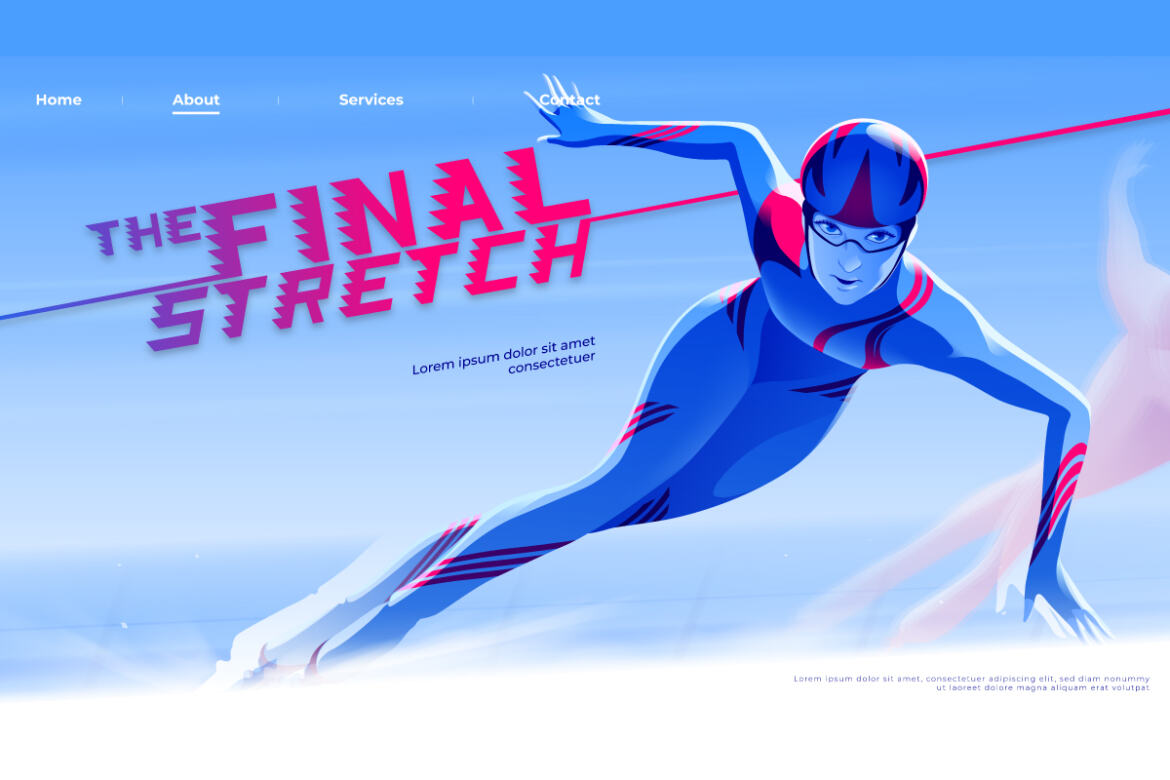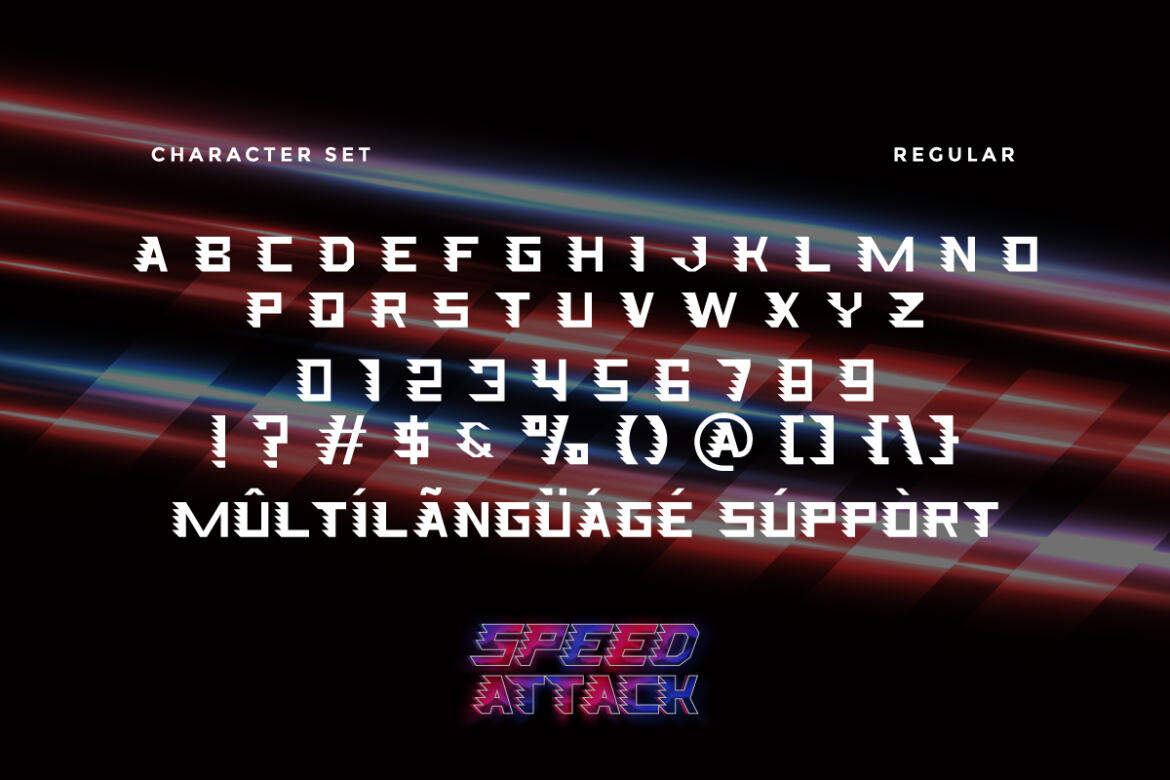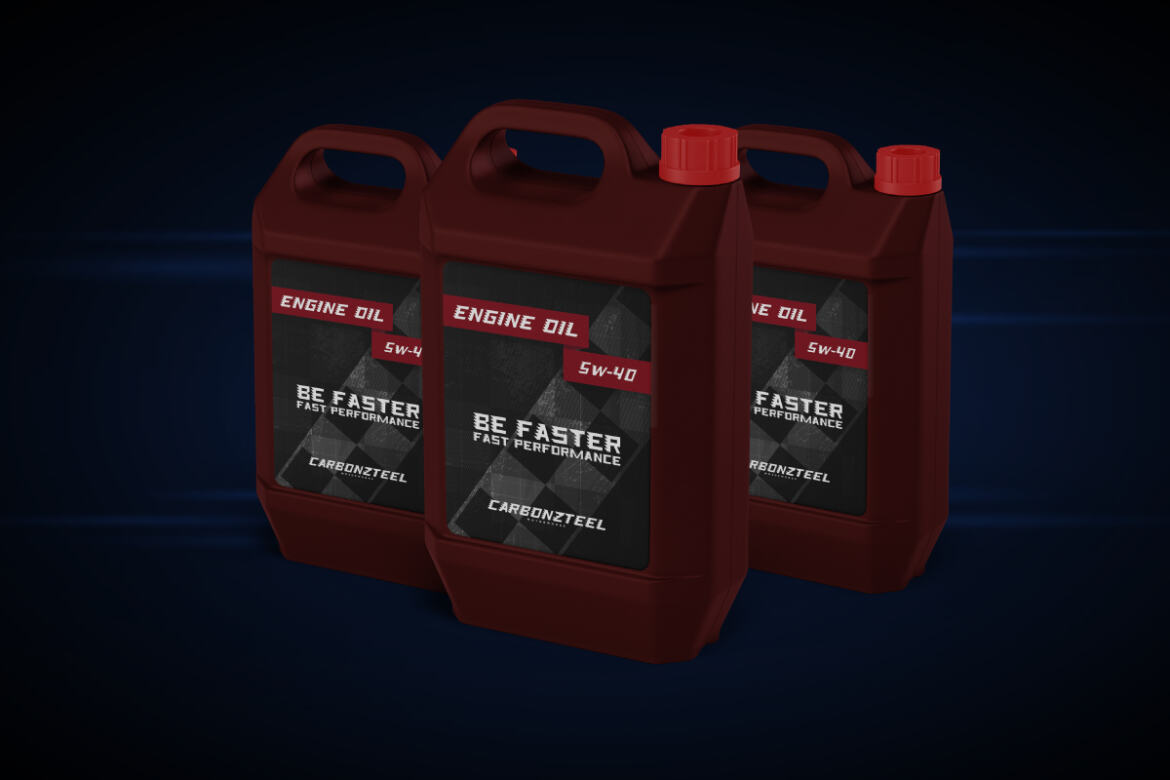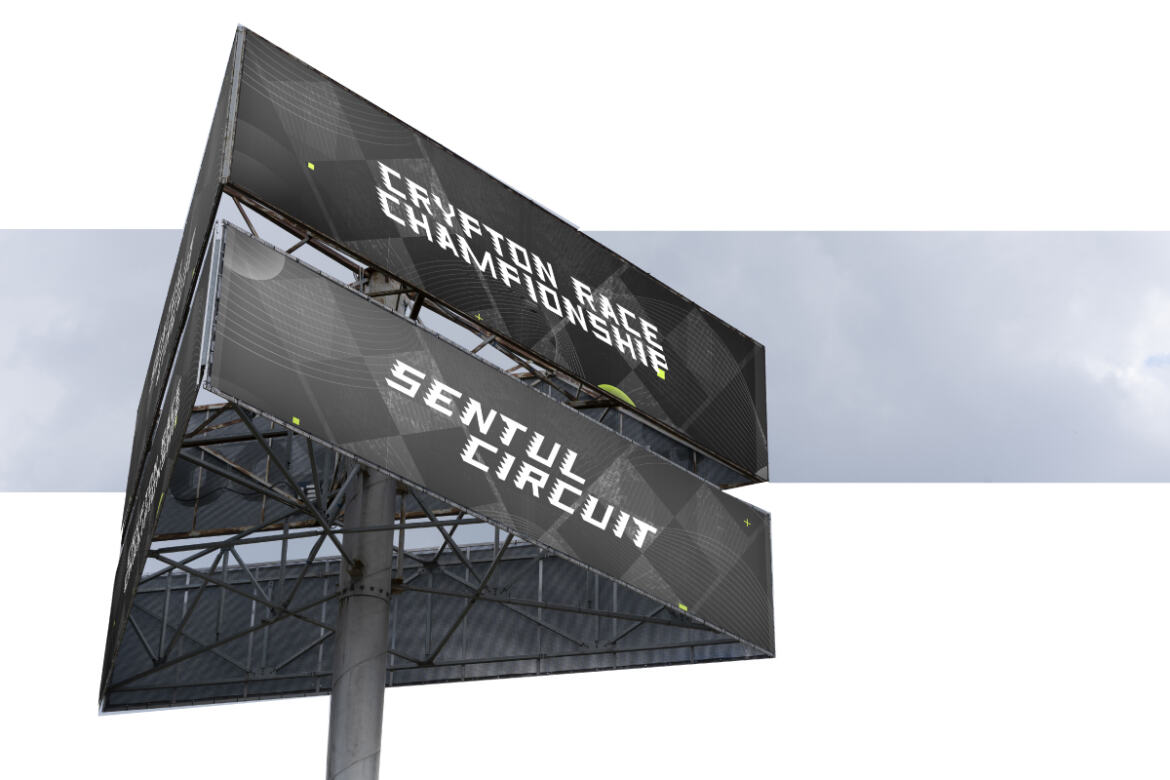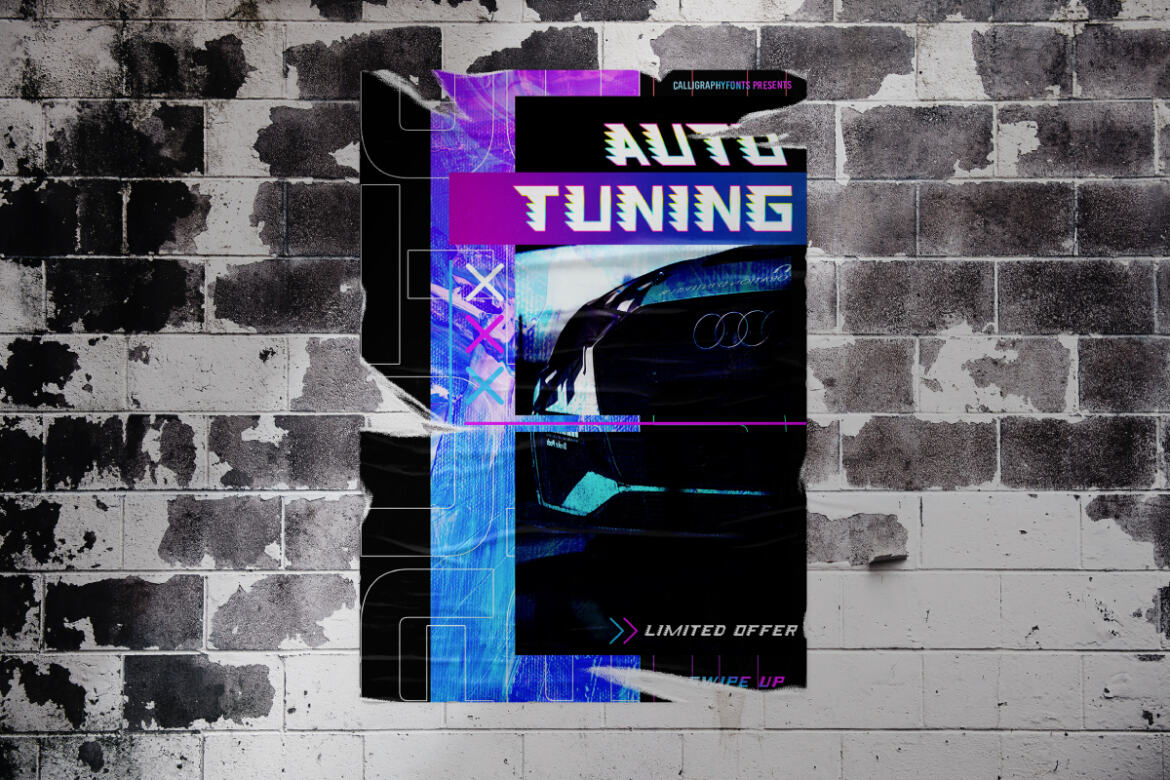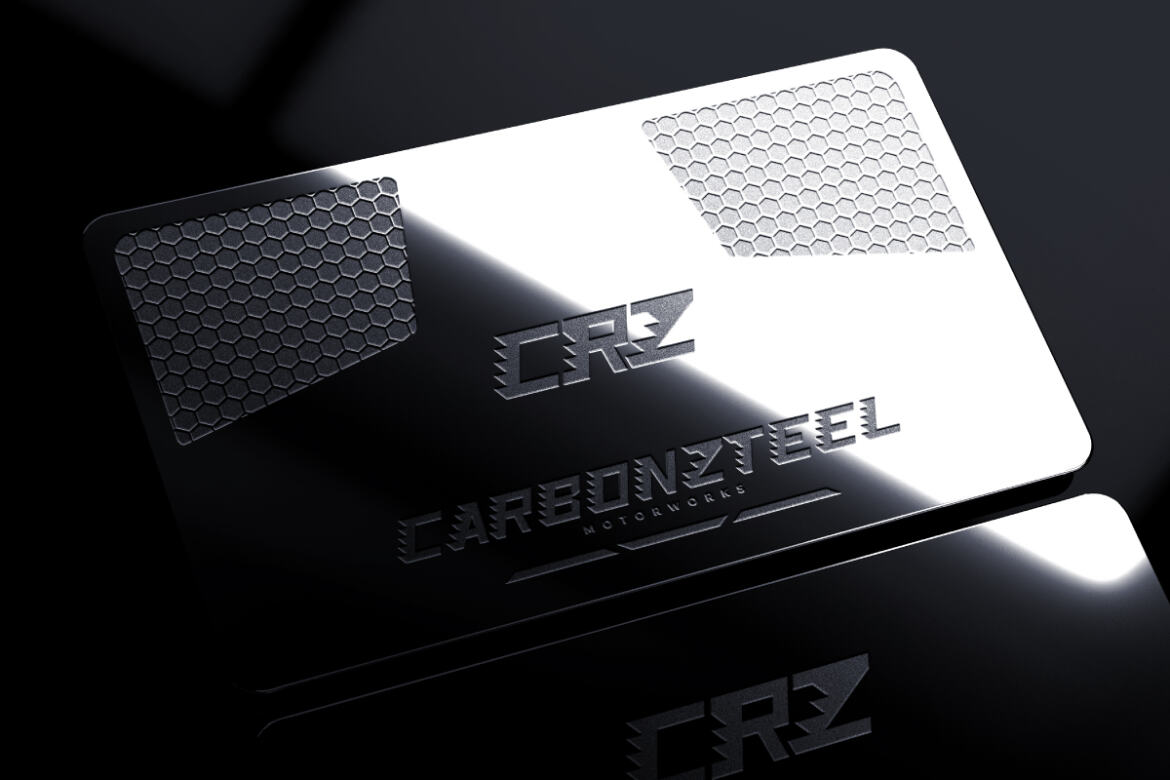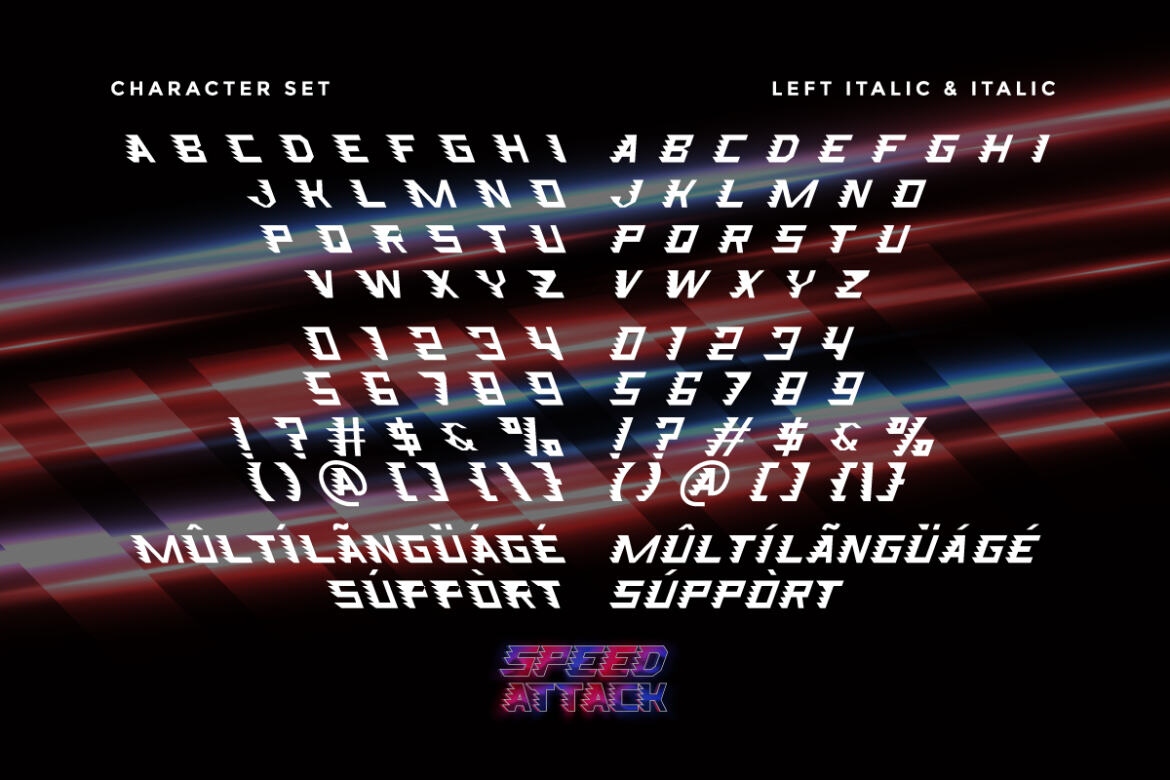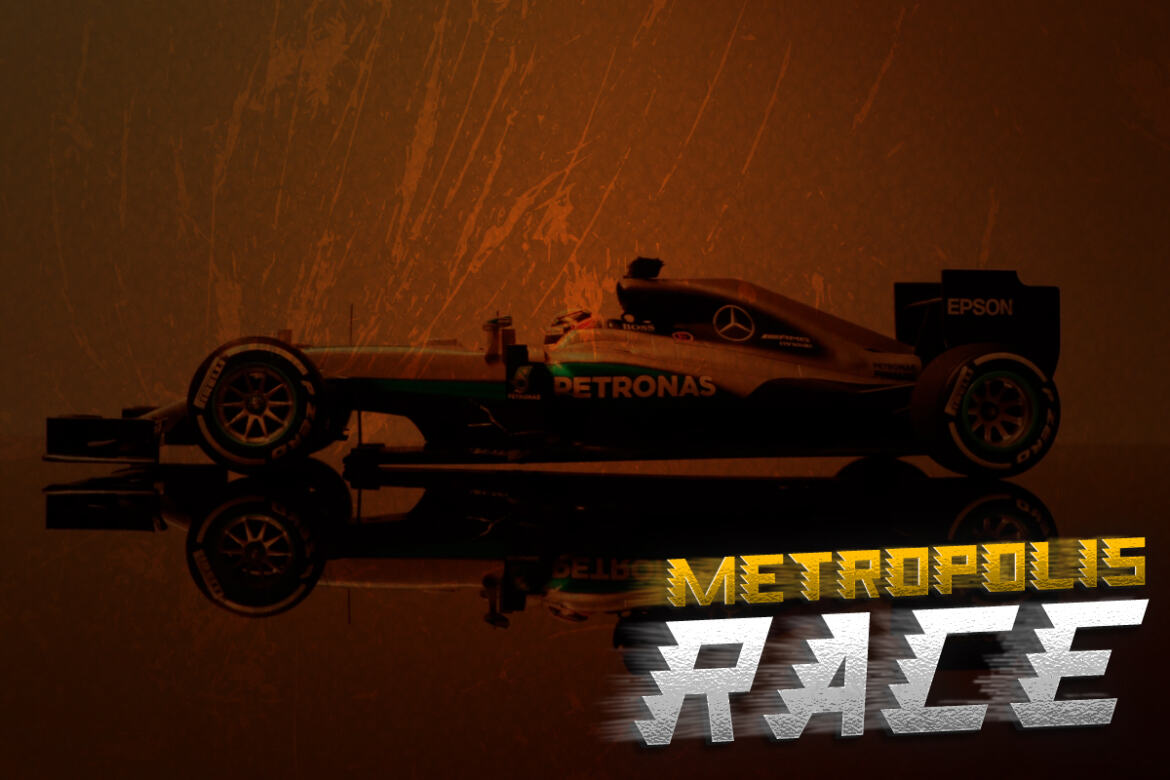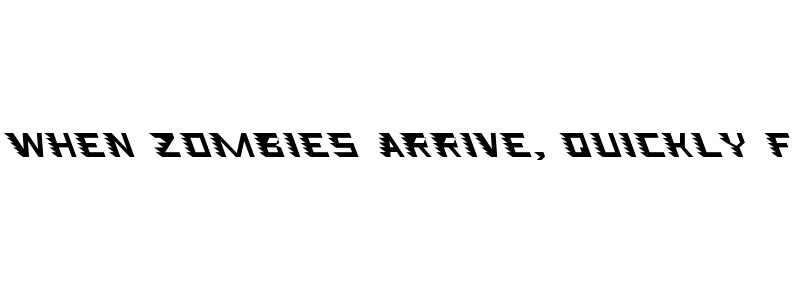
Speed Attack - Free Font
Speed Attack Font is a display font family with racing inspired styles. The style of this font are speedy,  modern, techno, strong, masculine, sporty etc. Great for logo, brandings, headlines, signage  etc. Speed Attack Font come with unique style characters that will make your designs standout. The font will be awesome for many industries including : sports, techno, festival, games, movies etc Speed Attack Font has three styles : Regular, italic and Left-italic. Here’s what you’ll get on the package :